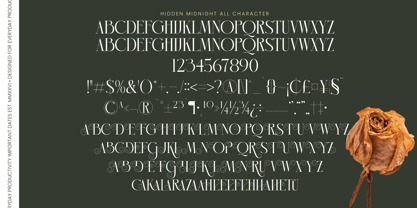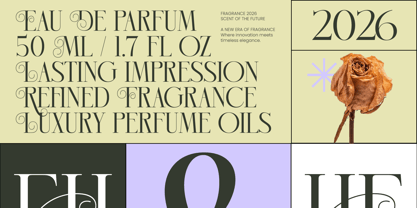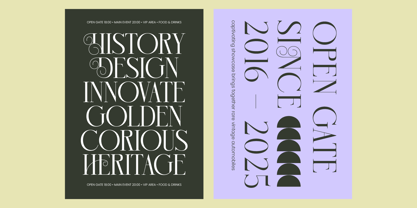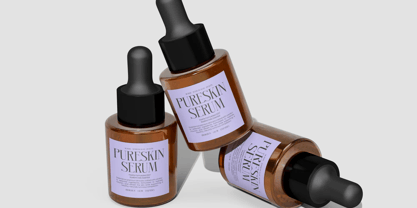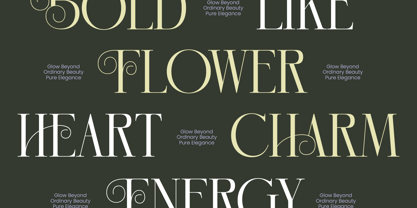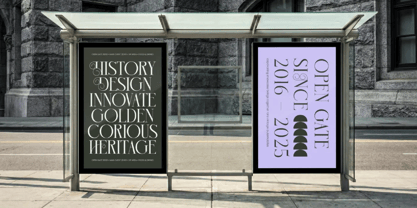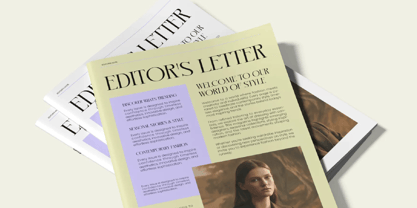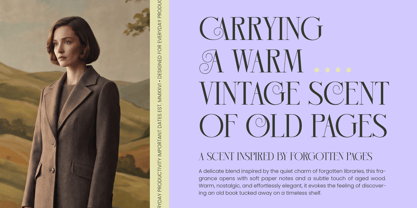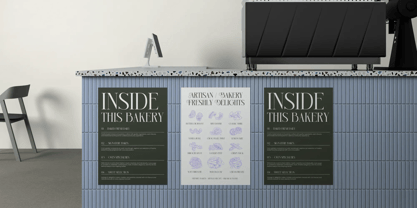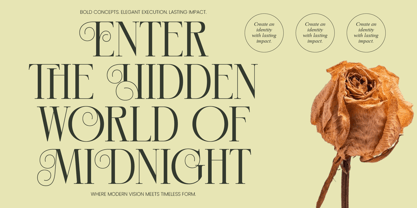
Hidden Midnight
La famille de polices Hidden Midnight a été conçue par Heru Utama Putra et publiée par Timelesstype Studio. Hidden Midnight contient 2 styles et options de package familial. En savoir plus sur cette famille
Hidden Midnight is more than just a typeface; it is a whisper of luxury and a deep dive into the enigmatic beauty of the twilight hours. This font captures the essence of sophisticated mystery, inviting designers to craft narratives that linger long after the first glance.
Inspired by the quiet elegance of high-end perfume houses and the timeless allure of editorial masterpieces, this collection draws from the romantic shadows of the midnight garden. The visual story is one of withered roses and golden moonlight, blending classical structures with a contemporary, sharp edge.
Defined by its sharp terminals and dramatic strokes, this modern serif display is engineered for maximum luxury typography. It provides a high-contrast serif experience that ensures every word carries an editorial font weight, delivering a powerful branding impact for those who refuse to settle for the ordinary.